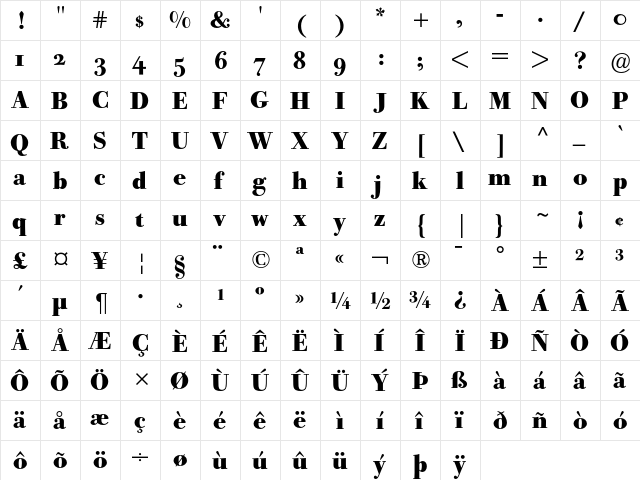
Bodoni Old Face BE Bold Oldstyle Figures
Design Context for Bodoni Old Face BE Typeface
Bodoni Old Face BE brings classic typographic sensibility to the table — its serifs and measured letterforms reflect centuries of print heritage. The heavy weight commands attention and anchors typographic hierarchies.
Pro Tip: Set Bodoni Old Face BE with slightly loose tracking in headlines to let each letterform's detail read clearly at display sizes.